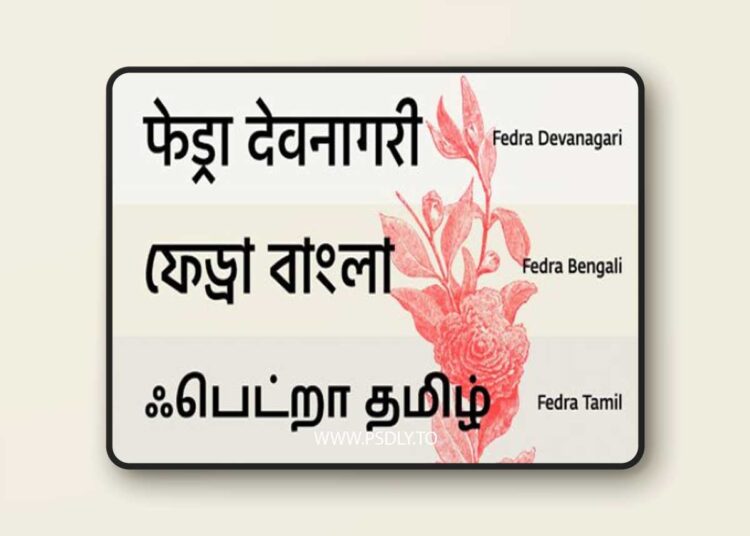
After designing a Devanagari companion of Fedra Sans in 2007, Typotheque has worked with ITF to cover other Indian writing scripts, to extend the language coverage of Fedra Sans. Fedra Sans Bangla is a Bengali (??????) version of Fedra Sans. Originally developed for visual identities, it works well on paper and computer screen. The Indic script Bengali is the 6th most widely used writing system in the world, with with around 210 million native speakers.
All weights of Fedra Sans Bengali include three different kinds of numerals. Default numerals are proportional lining figures. Special Bengali numerals are included, as well as two different sets of Hindu-Arabic numerals. The thinner version is intended for the combinations with the Indic scripts, and thicker stroke version for combining numbers with the Latin based languages.